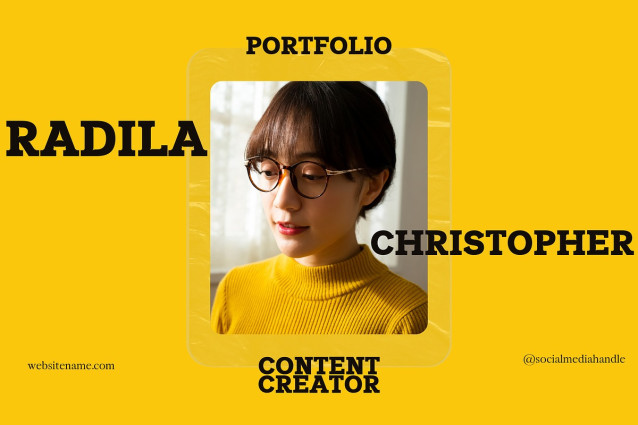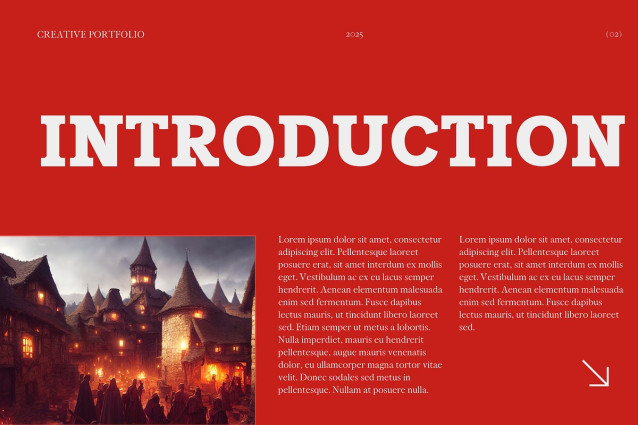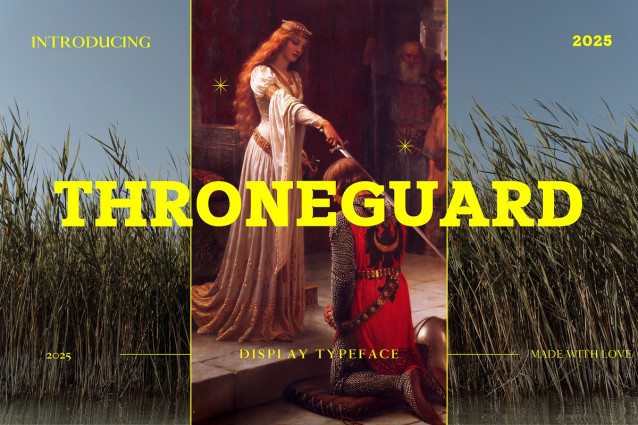
Throneguard Font
Throneguard Font A powerful display typeface built for regal authority and medieval grandeur. Throneguard Display font combines bold slab serif construction with contemporary readability, creating a font that’s perfect for designers, publishers, game developers, and creatives looking to add commanding presence to their projects.